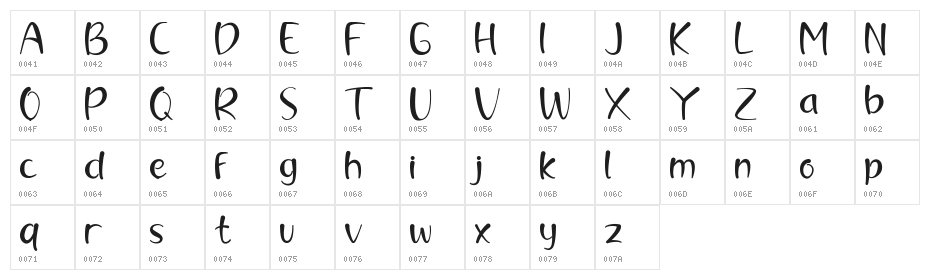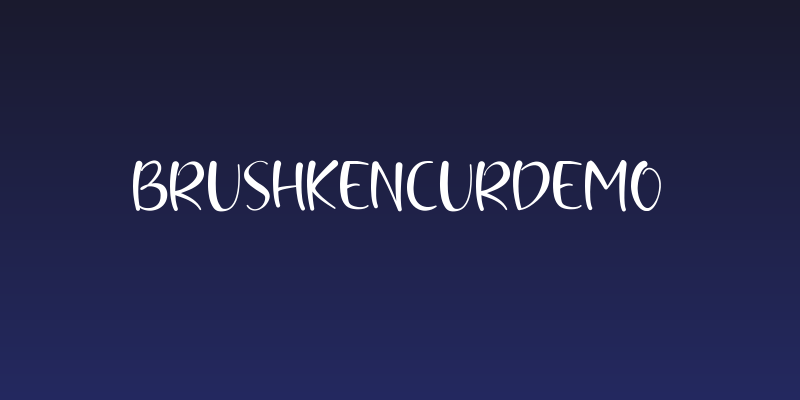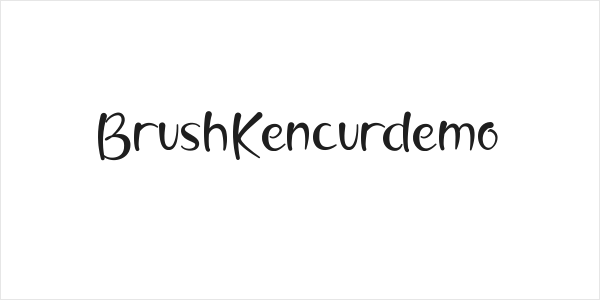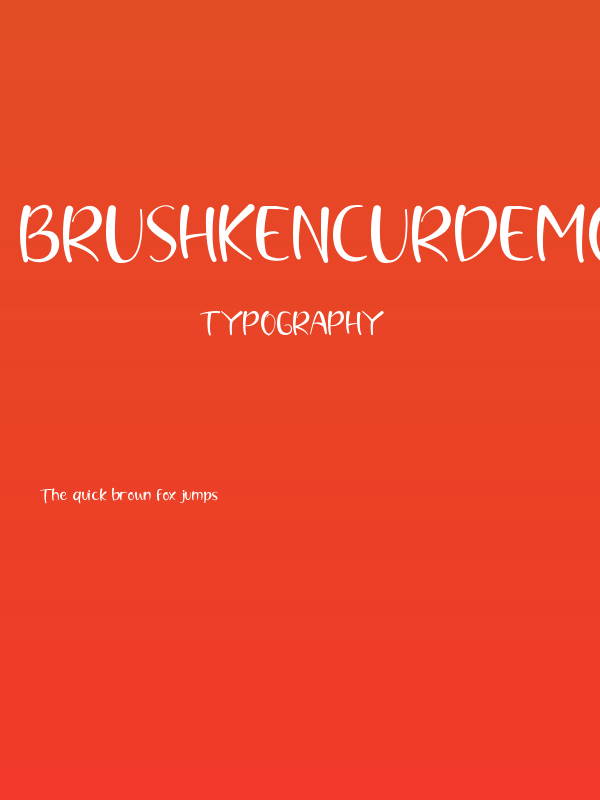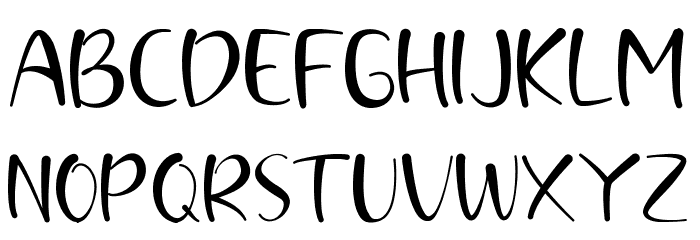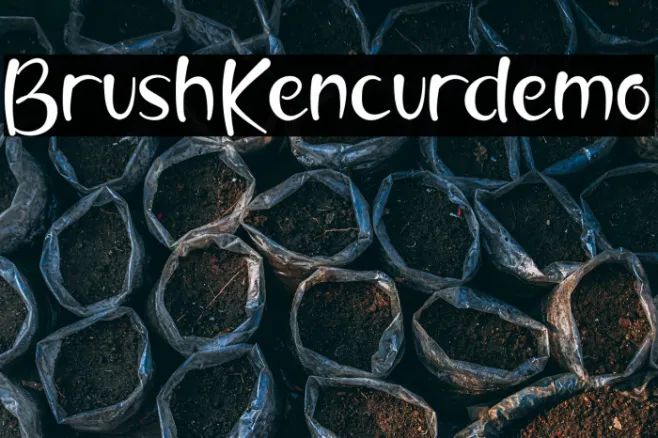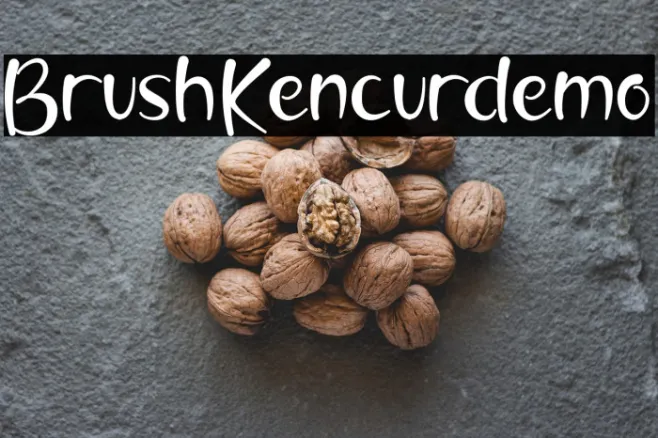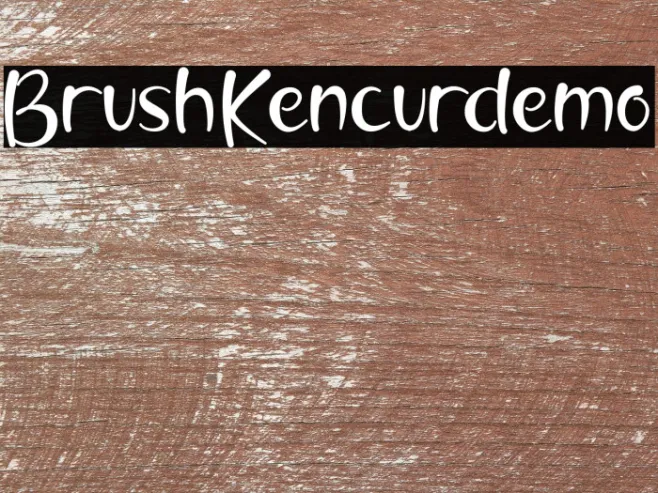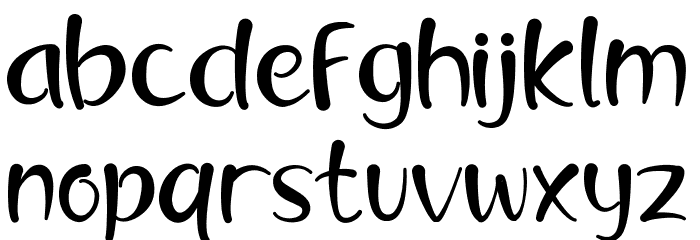
BrushKencurdemo Font
BrushKencurdemo Description
This font features a playful and artistic brush script style, characterized by its fluid and dynamic strokes. The letters exhibit a hand-drawn quality, with varying thickness that adds a lively and energetic feel. The uppercase and lowercase letters maintain a consistent style, with rounded edges and a slight slant that enhances the casual, informal appearance. The numerals and special characters are designed to match the overall aesthetic, making it suitable for creative and expressive projects. The font's natural flow and organic shapes make it ideal for designs that require a personal touch.
| Proposed Projects | Ideal for greeting cards, invitations, branding, and social media graphics. |